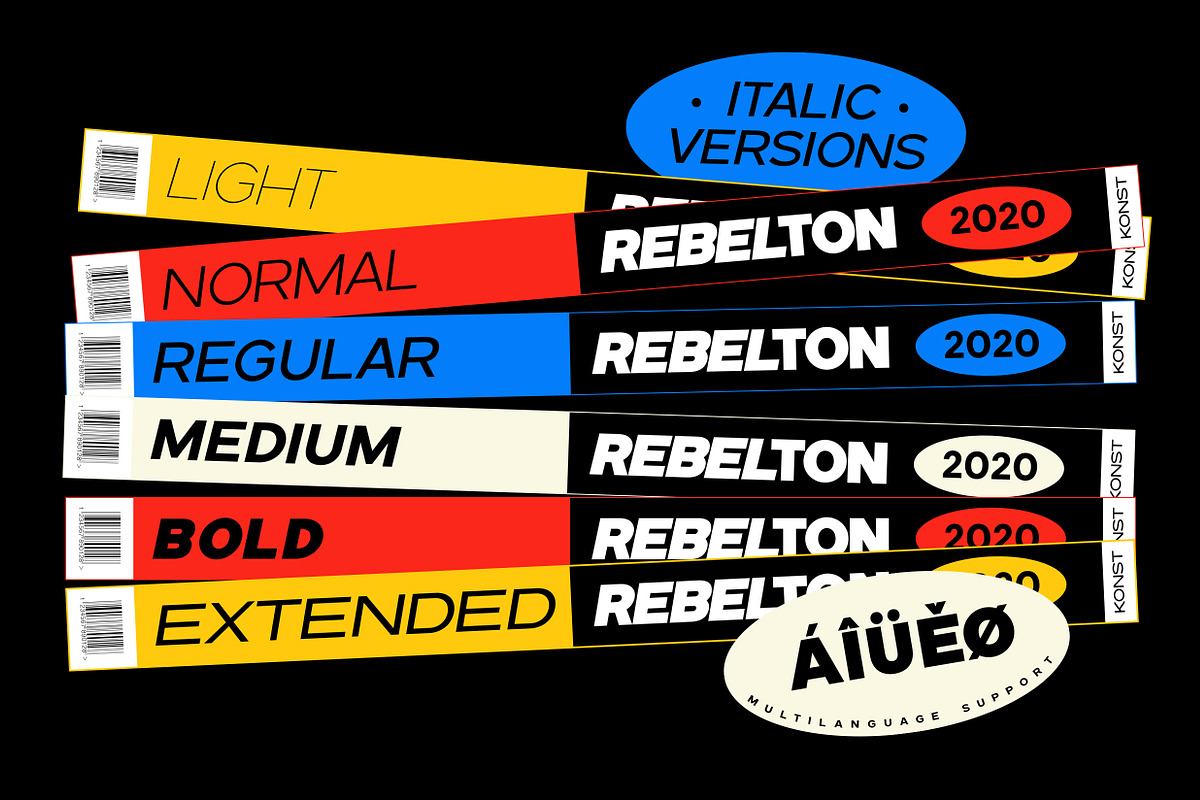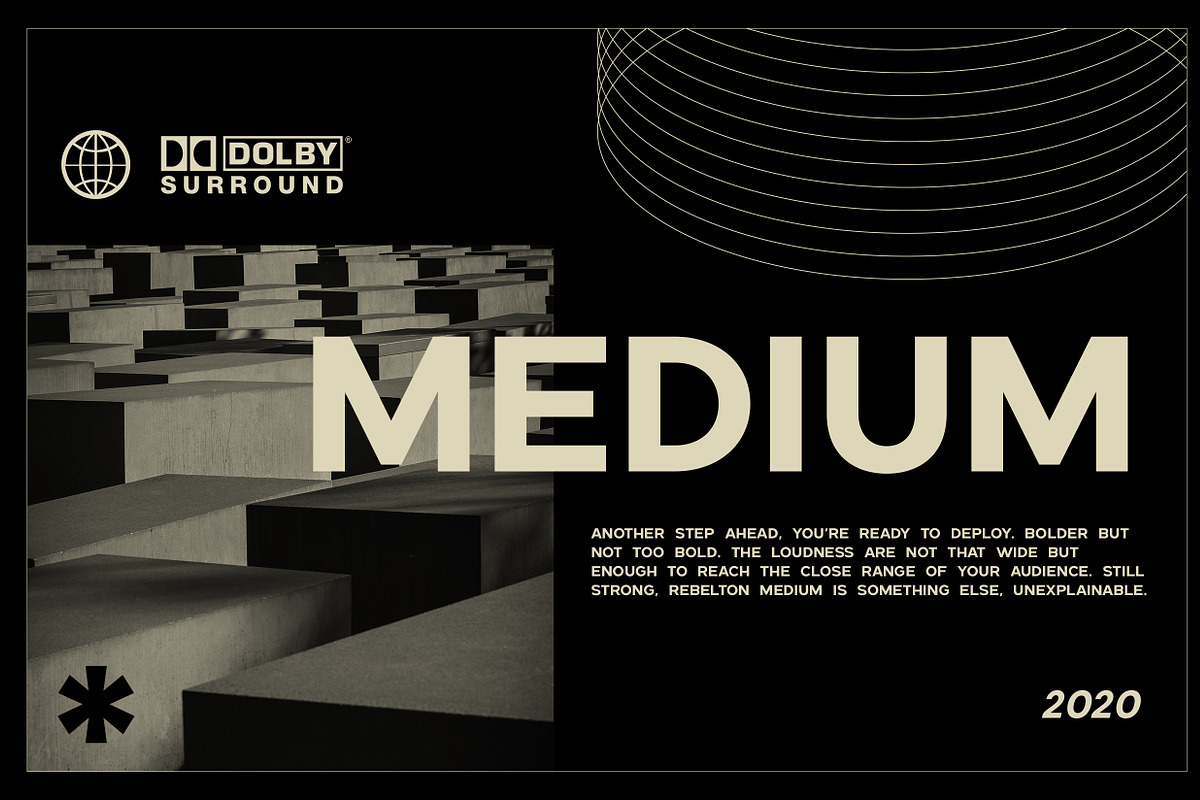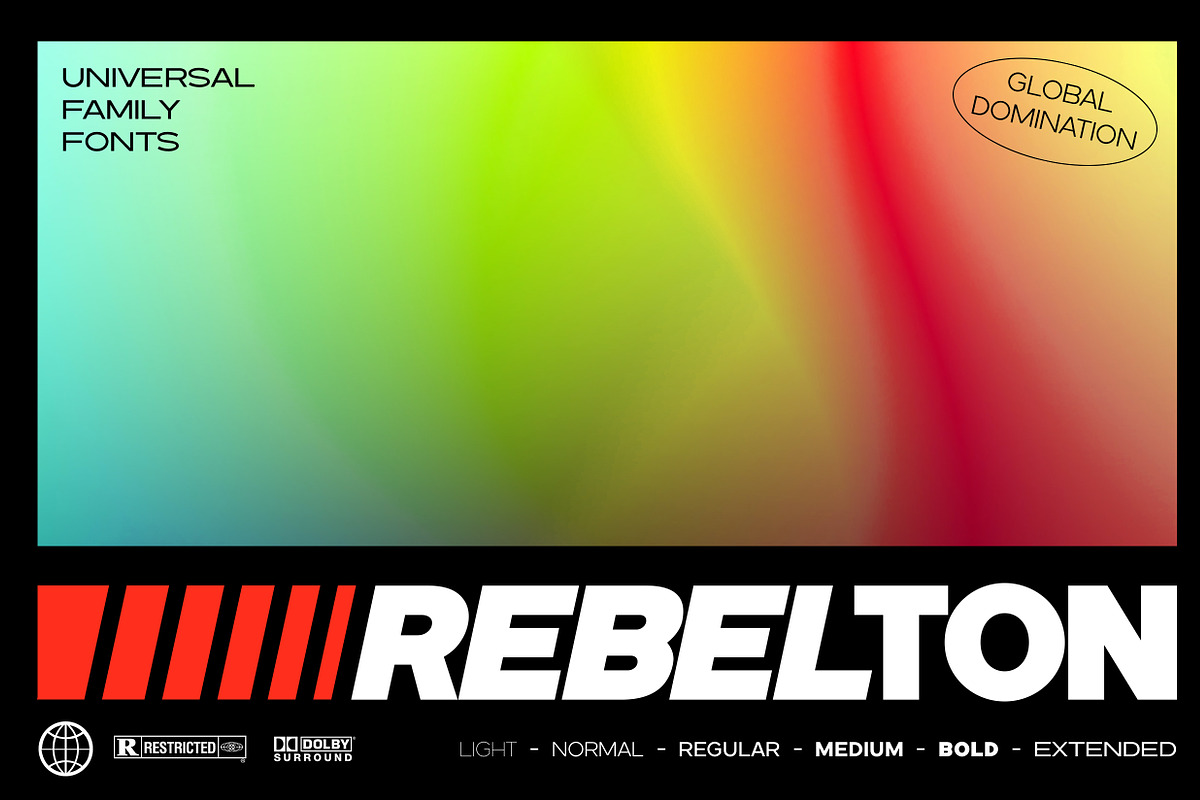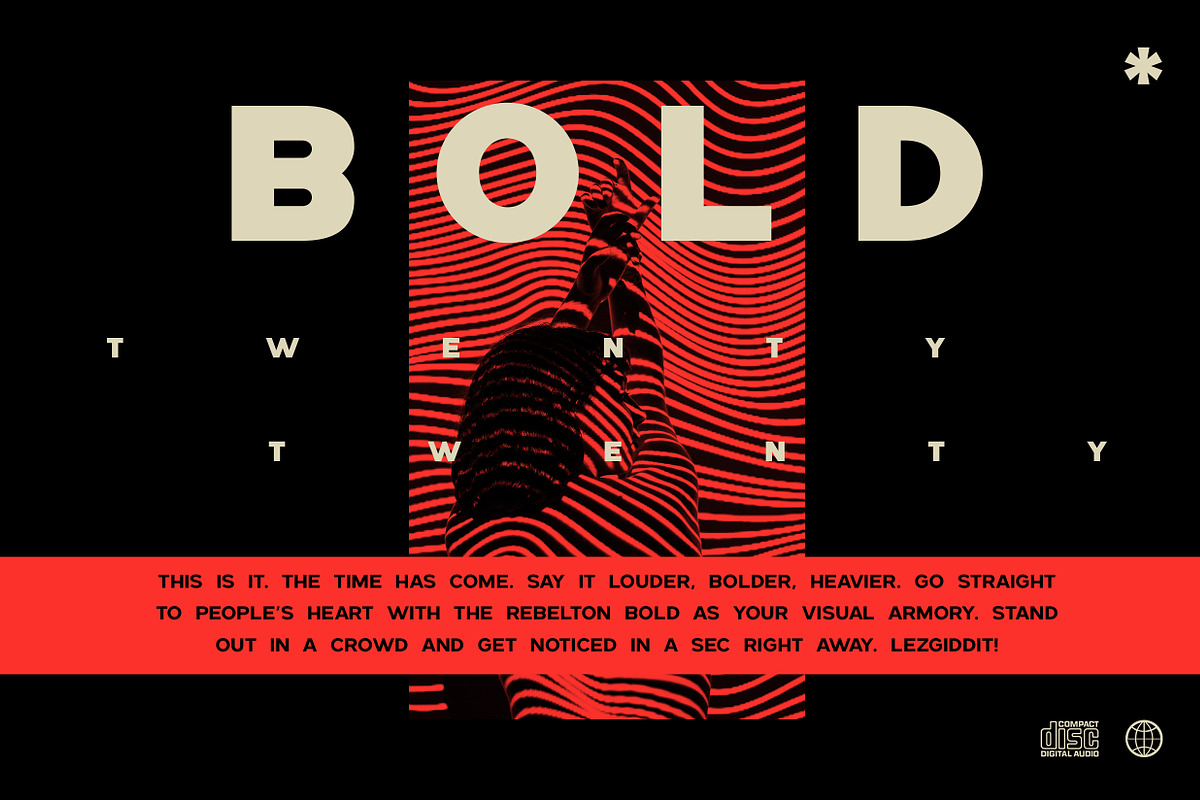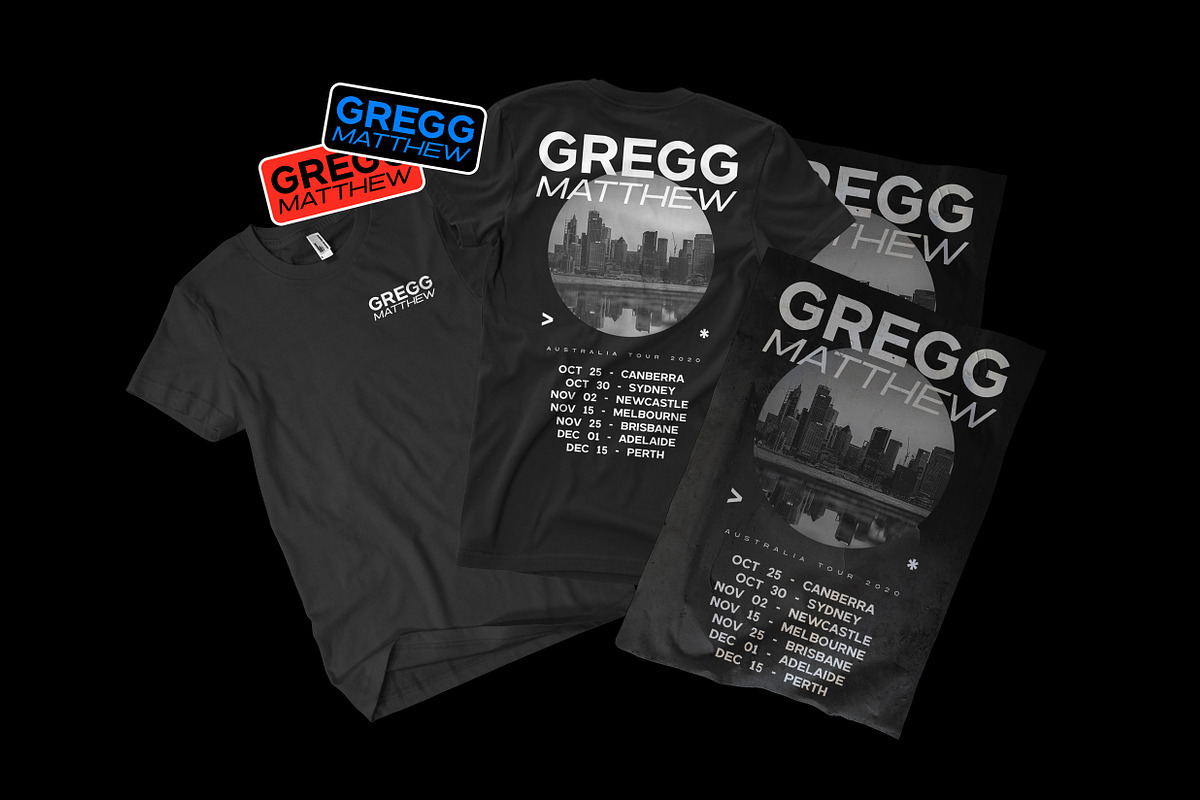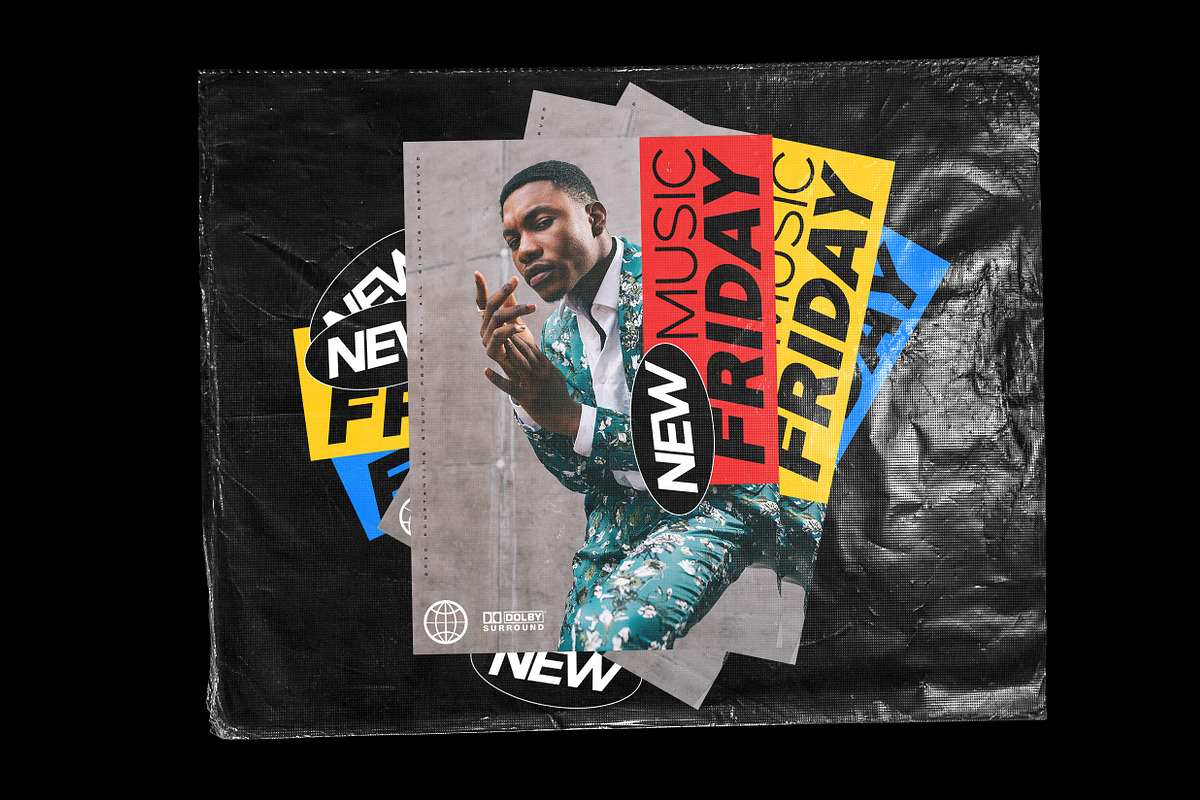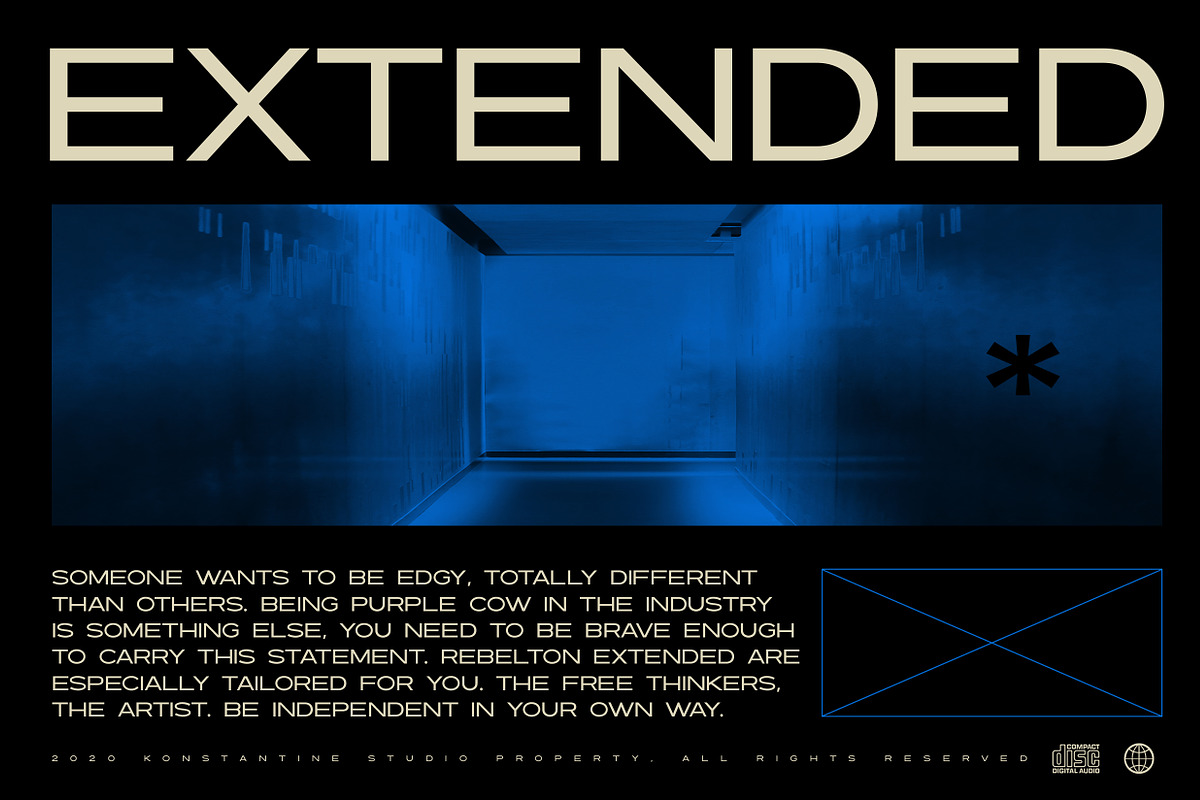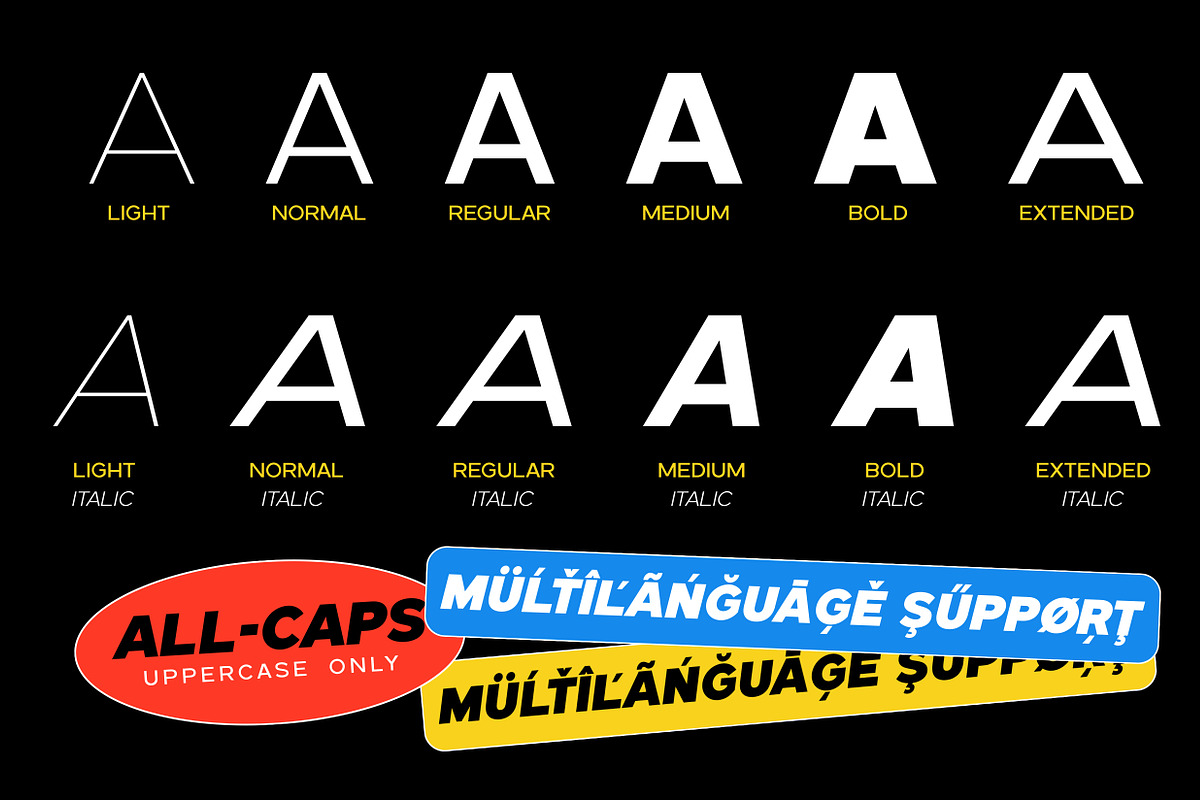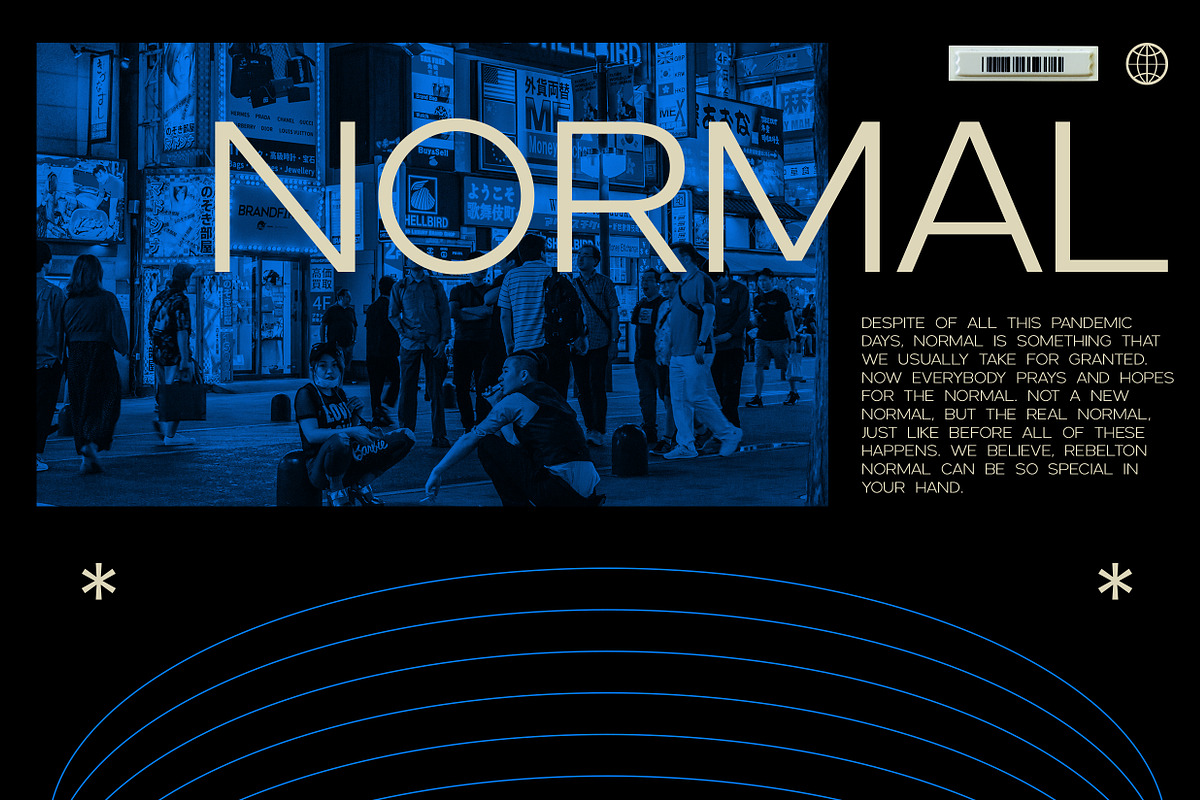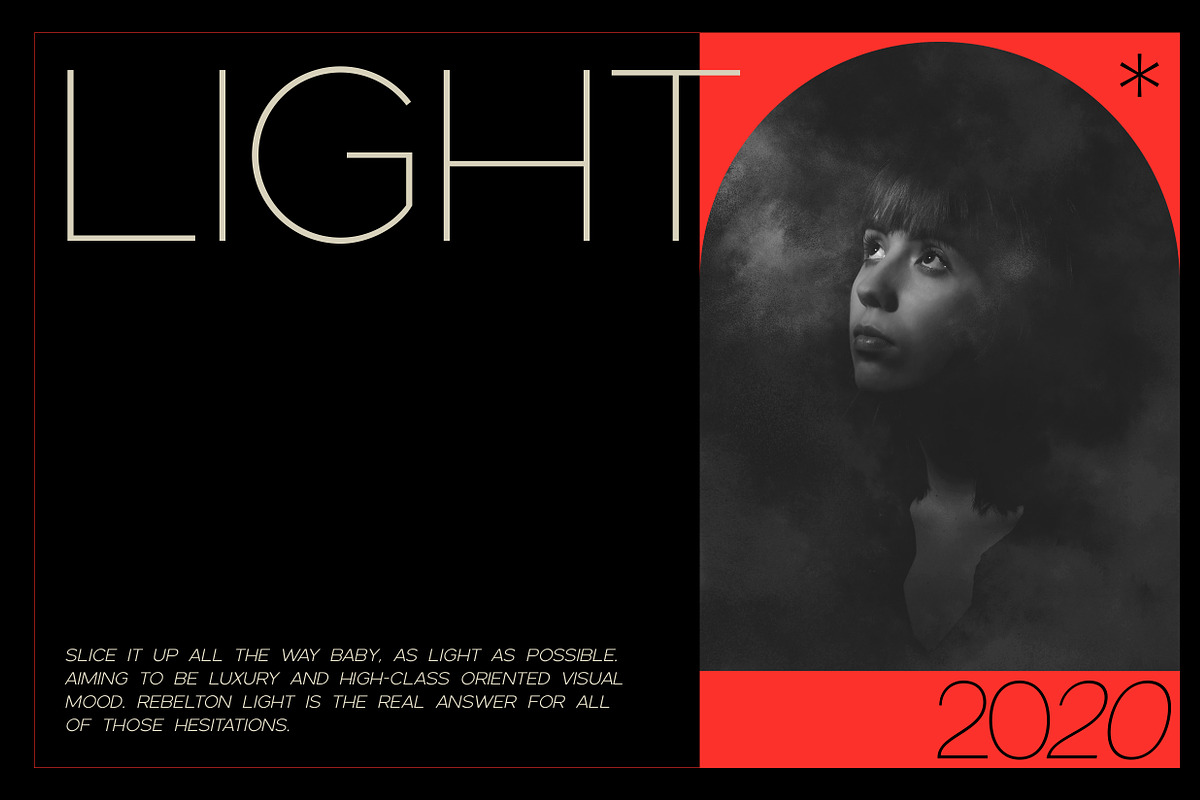
REBELTON - Modern Sans Serif Family
Fast-forward to the modern and futuristic era, a font with strong characters and a long versatility in any era is a must-have survival mode item. Rebelton family was born to company that mission on earth.
A set of family fonts with special mood and characters in every single one. Team up with each other to make a strong vibe in your visual project. Because that's what family stands out for.
Rebelton Light
Rebelton Normal
Rebelton Regular
Rebelton Medium
Rebelton Bold
Rebelton Extended
Rebelton Light Italic
Rebelton Normal Italic
Rebelton Regular Italic
Rebelton Medium Italic
Rebelton Bold Italic
Rebelton Extended Italic
Language Support: Albanian, Basque, Catalan, Cornish, Croatian, Czech, Danish, Dutch, English, Esperanto, Estonian, Faroese, Finnish Scots, French, Gaelic, Galician, German, Greek Transliterated, Hawaiian, Hungarian, Icelandic, Indonesian, Irish, Italian, Latvian, Lithuanian, Maltese, Nynorsk Bokmal Norwegian, Polish, Portuguese, Romanian, Slovak, Slovenian, Spanish, Swedish, Turkish, Welsh. If you doubt with it please type it out in the text box below, I hope it will support your language too :)